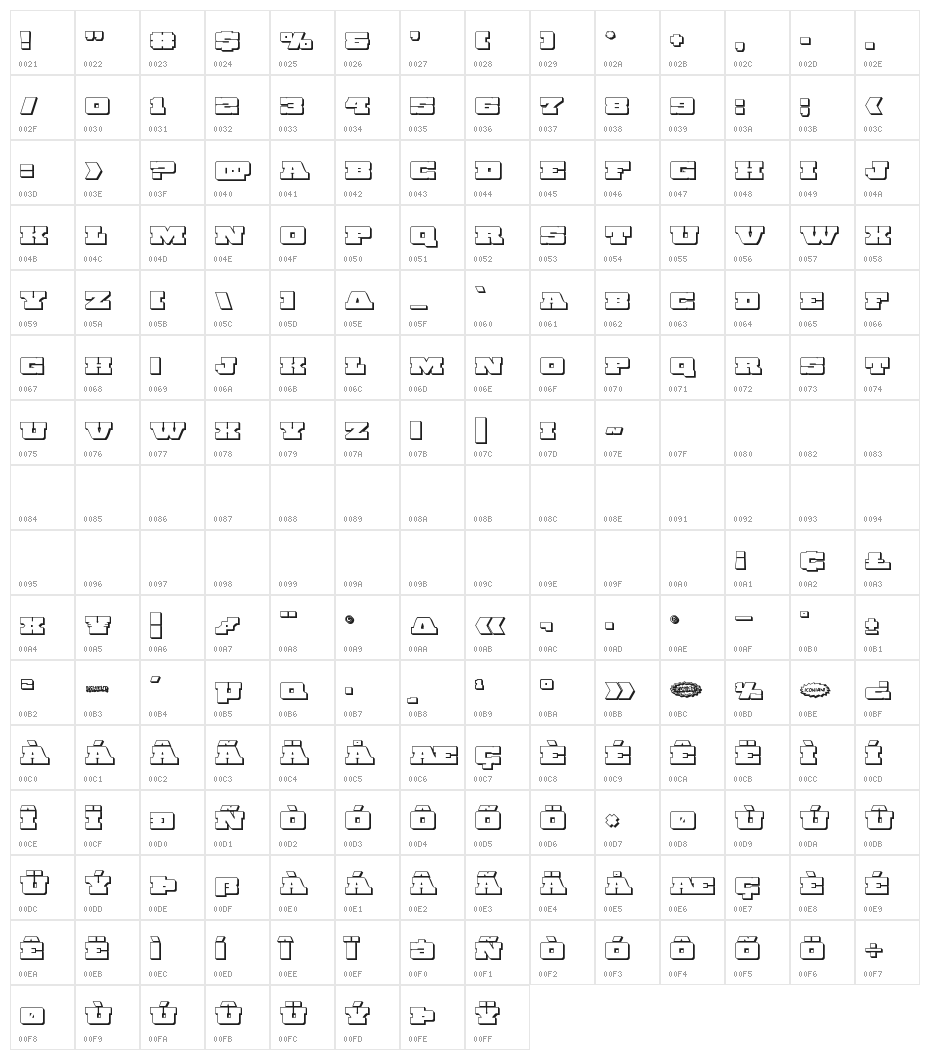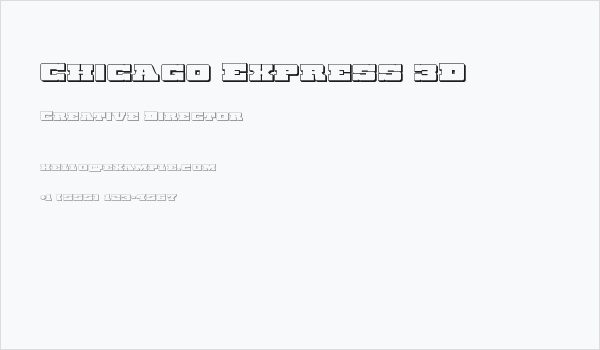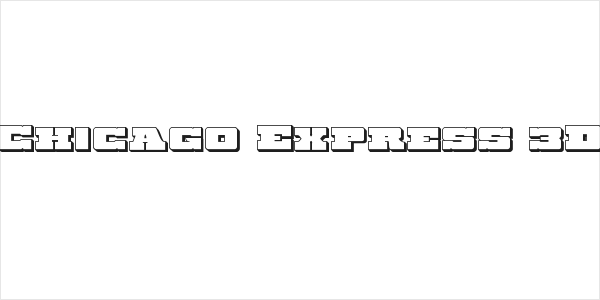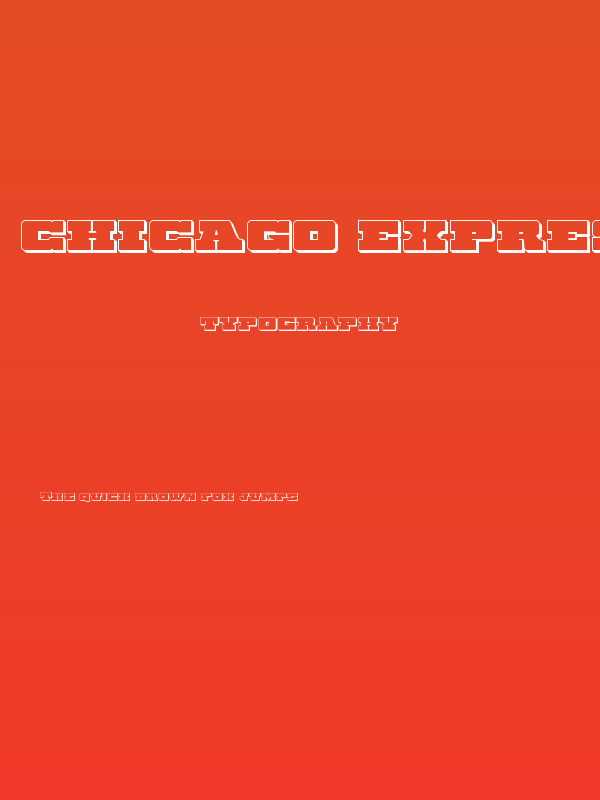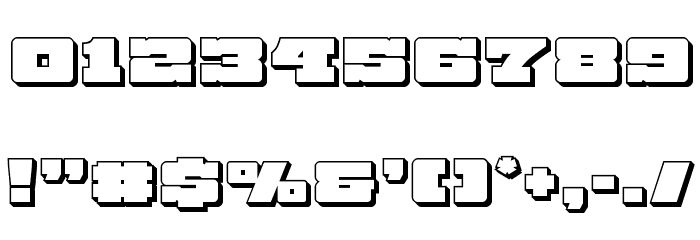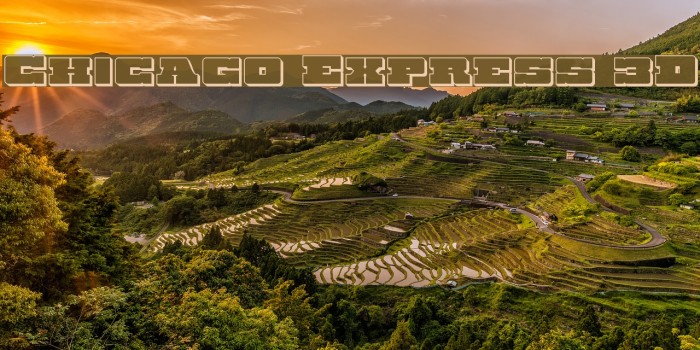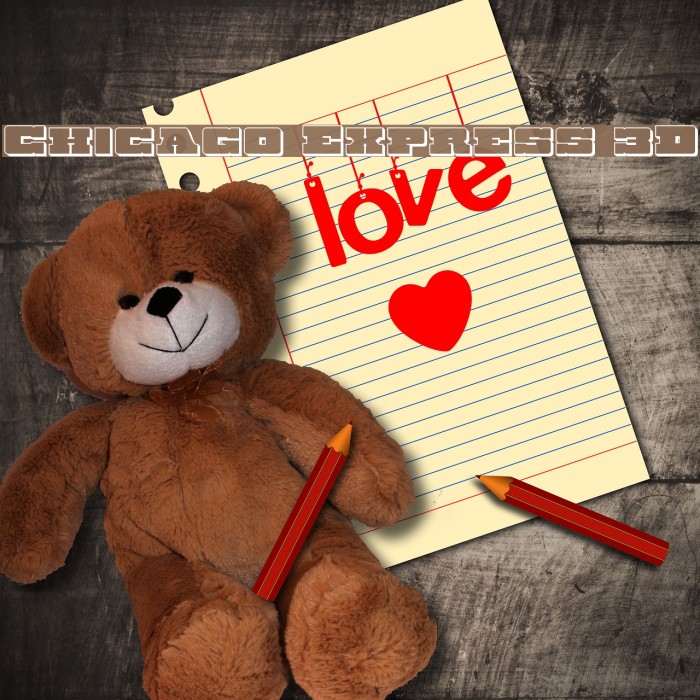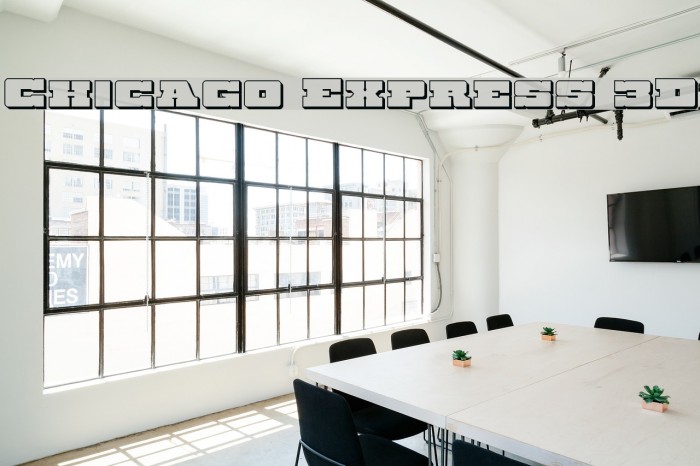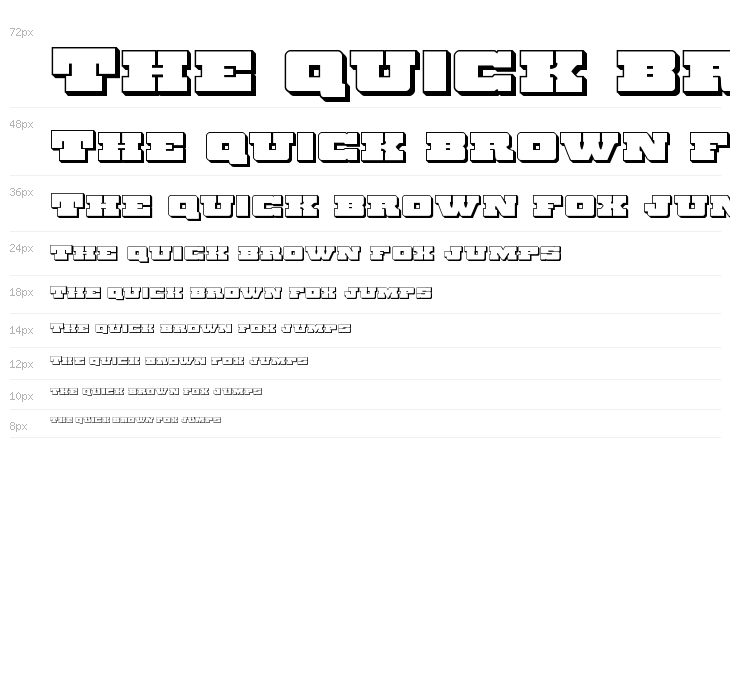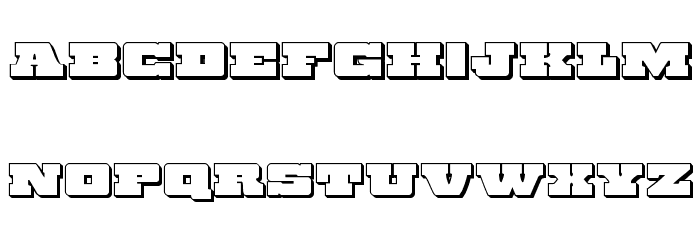
Chicago Express 3D Font
Chicago Express 3D Description
This font features a bold, three-dimensional style with a strong, impactful presence. The characters are blocky and robust, with a shadow effect that gives them a sense of depth and weight. Each letter is outlined, enhancing the 3D effect and making the font stand out. The uppercase letters are consistent in height and width, creating a uniform appearance. The numbers and special characters follow the same design principles, ensuring a cohesive look across all elements. This font is designed to capture attention and convey a sense of strength and solidity.
| Proposed Projects | Ideal for posters, logos, video game titles, and any project requiring a bold, eye-catching typeface. |